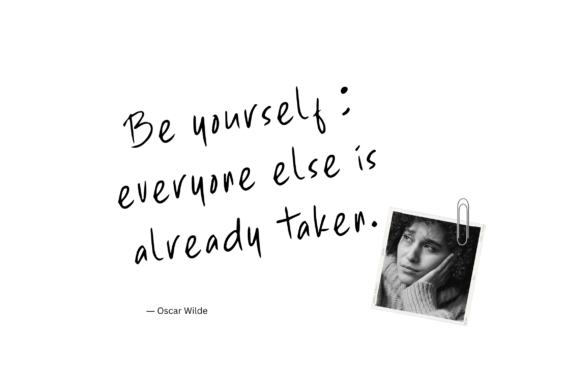
Step into a world of timeless charm and effortless beauty with Sunset Script Font, the ultimate script font collection that captures the essence of handwritten artistry. Meticulously crafted by the skilled hands of mocosans, Sunset Script Font is a symphony of graceful curves, delicate strokes, and enchanting details that will elevate your creative projects to new heights.
With its fluid and expressive nature, Sunset Script Font dances across your designs like a gentle whisper, adding a touch of whimsy and sophistication to every word. Its quick-stroke technique evokes the charm of handwritten notes, postcards from distant lands, and heartfelt letters penned with love.
As a script font, Sunset Script Font possesses an innate elegance that lends itself effortlessly to a myriad of applications. Create stunning wedding invitations that exude romance and timeless beauty, design eye-catching logos that leave a lasting impression, craft personalized cards and stationery that radiate warmth and affection, and transform ordinary text into captivating works of art.
But Sunset Script Font's allure extends far beyond its formal elegance. Its versatility knows no bounds, making it an indispensable tool for graphic designers, crafters, and creative entrepreneurs alike. Add a touch of vintage charm to your social media posts, create captivating marketing materials that resonate with your audience, and design products that exude individuality and style.
Whether you're a seasoned designer or just starting your creative journey, Sunset Script Font is your gateway to a world of limitless possibilities. Its user-friendly nature makes it accessible to all, while its exceptional quality ensures professional-grade results.
So embark on this enchanting journey with Sunset Script Font, and let your creativity soar. Transform your designs into captivating expressions of art, and leave an indelible mark on the hearts and minds of those who behold them.